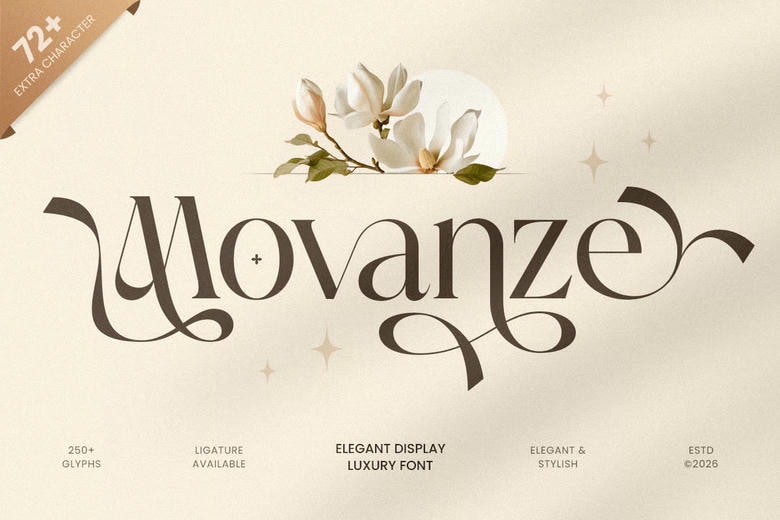
Movanze is a refined display luxury font that uses the font to provide sophisticated elegance with a big premium look. With its smooth letterforms, elegant ratios, and sophisticated display rhythm, this typeface is a high-end visual feel that is exclusive, modern, and immediately memorable.
Designed to be used as statement typography, Movanze can be used effectively in logos, wordmarks, editorial headlines, magazine covers, web site headings, packaging and labels, invitations, signage, presentation art, and also high-end marketing visuals. Its vast display construction provides each design with great visual appeal and clarity and sophistication in both digital and print design.
You are developing a fashion identity, developing a beauty branding, or designing a high-quality packaging, or developing luxurious promotional content, Movanze is the classy foundation of display, and your typography will be refined, shiny and memorable.